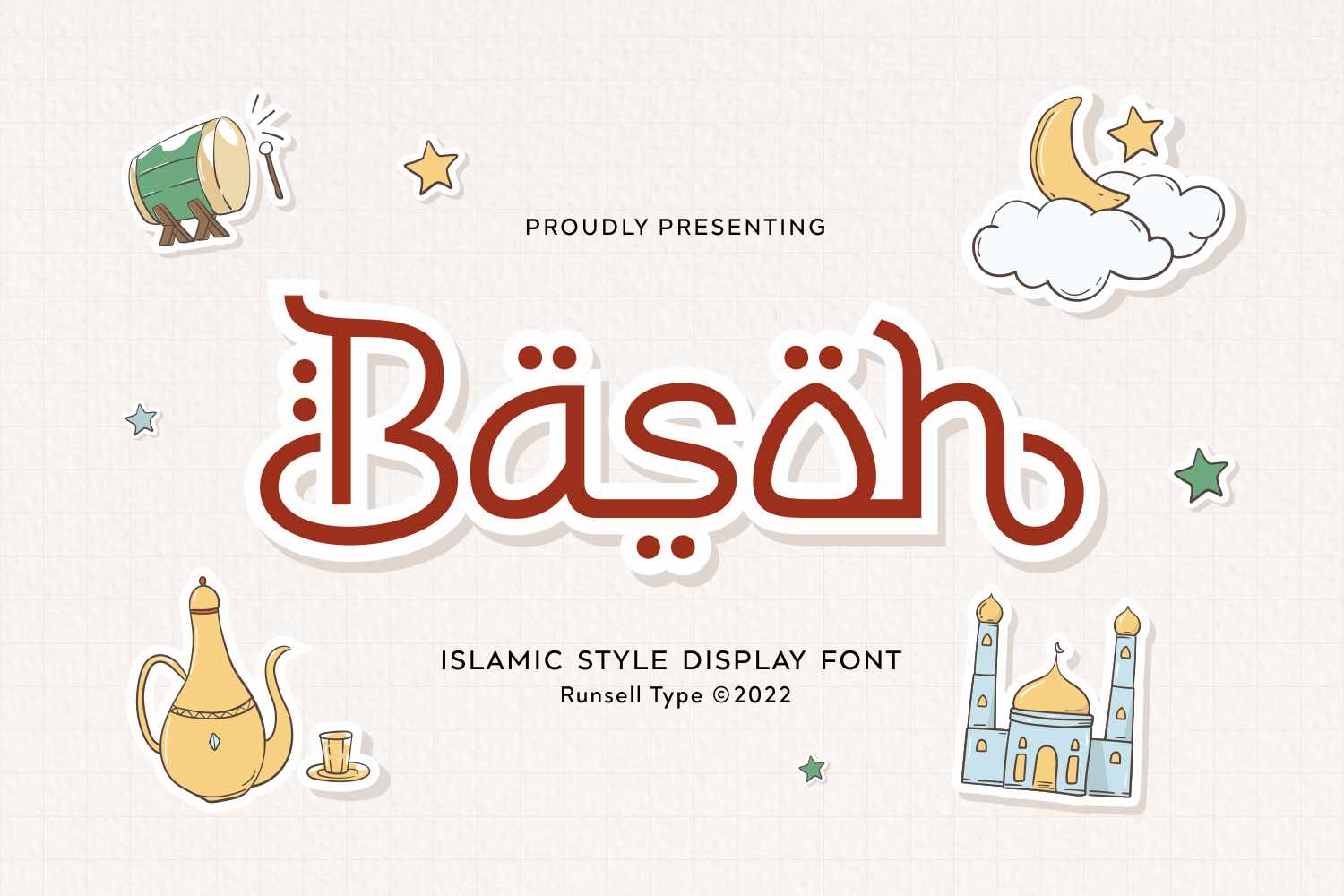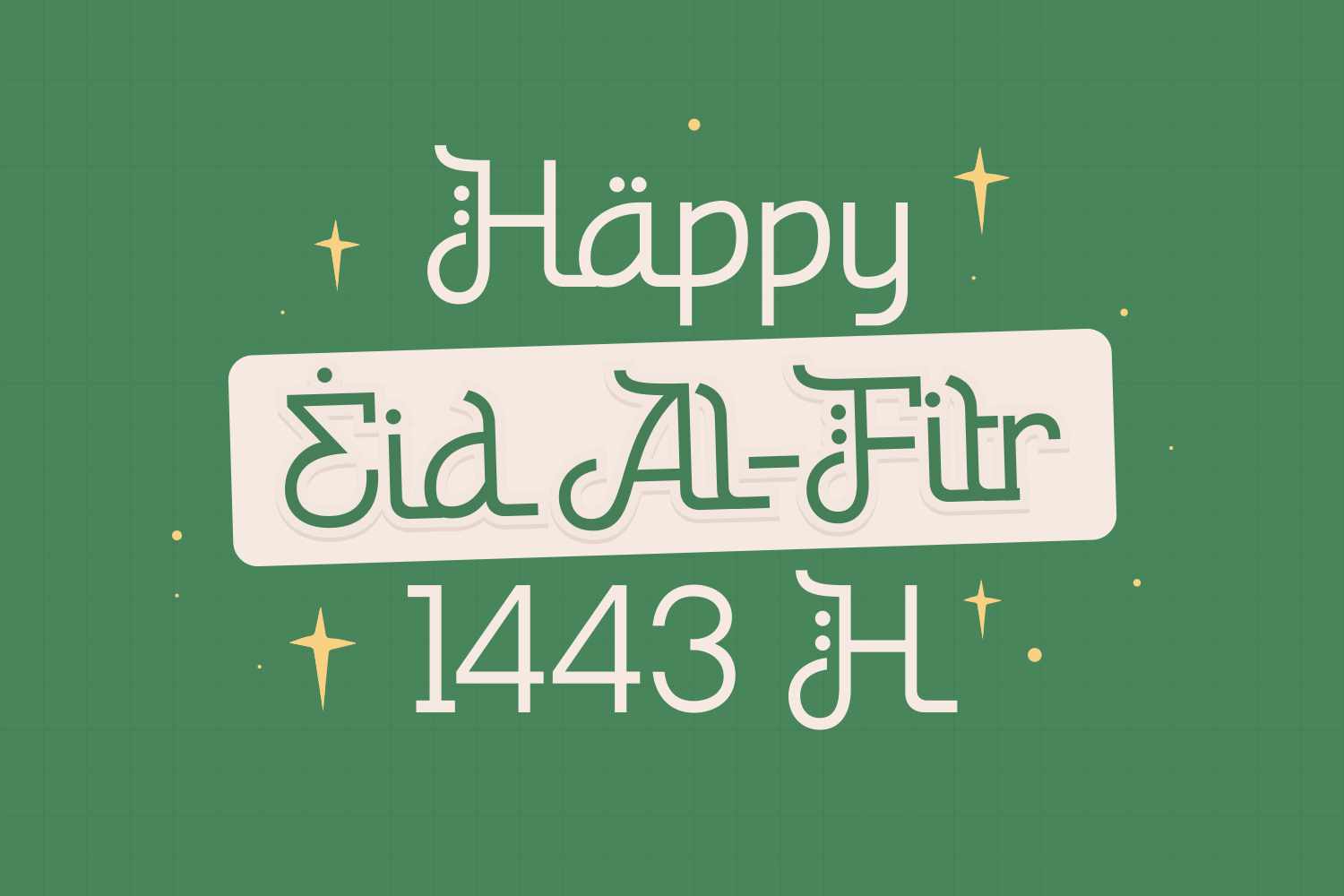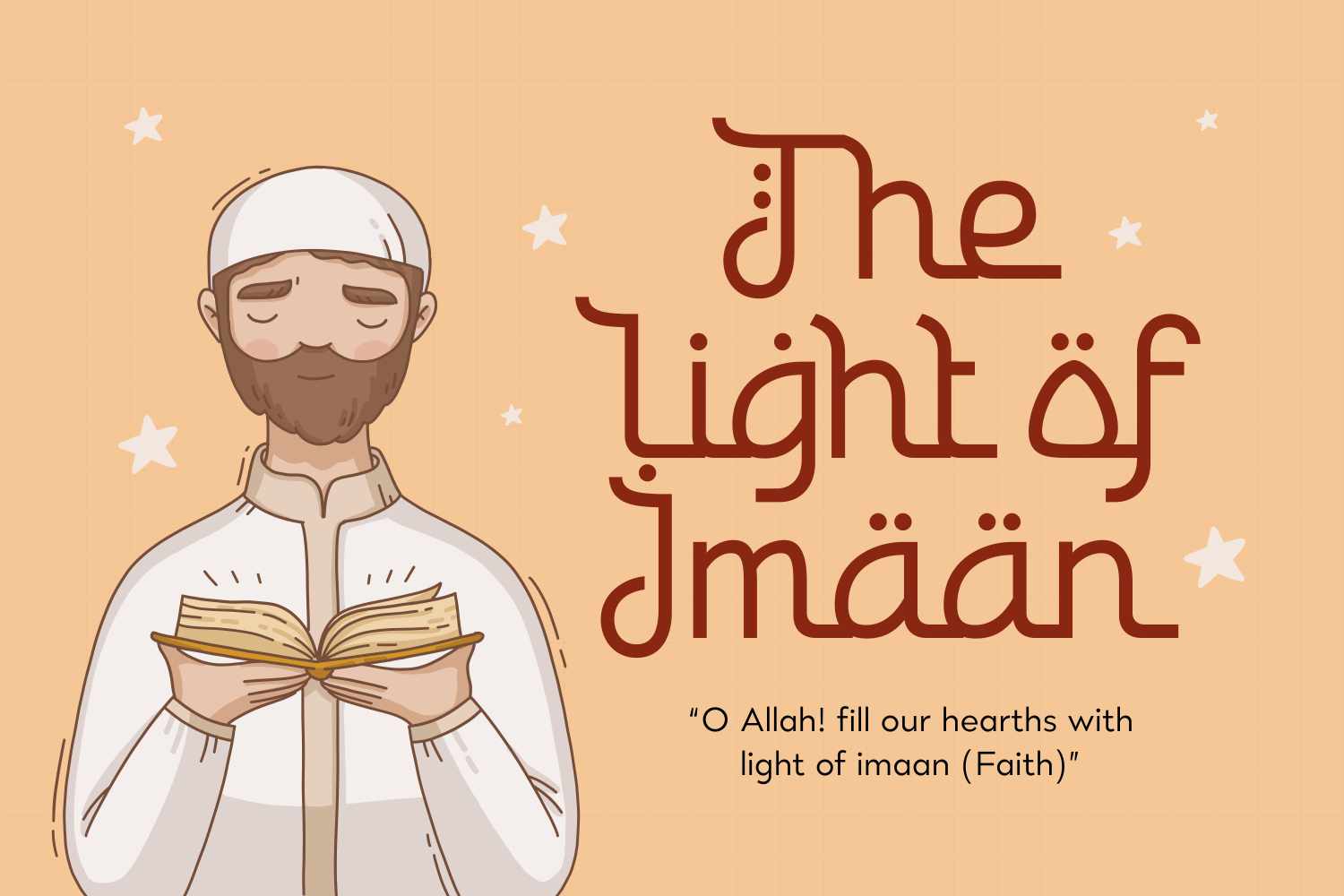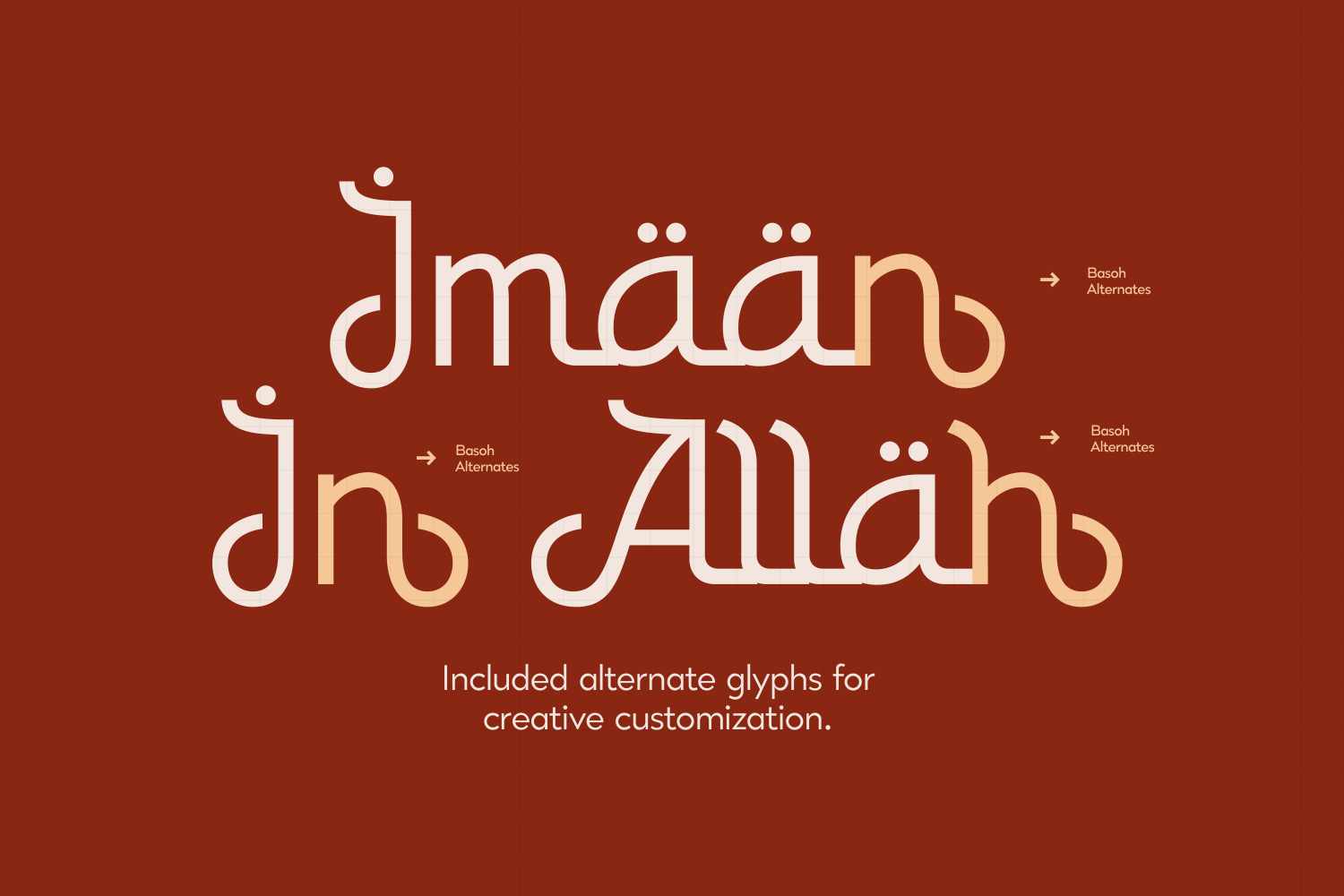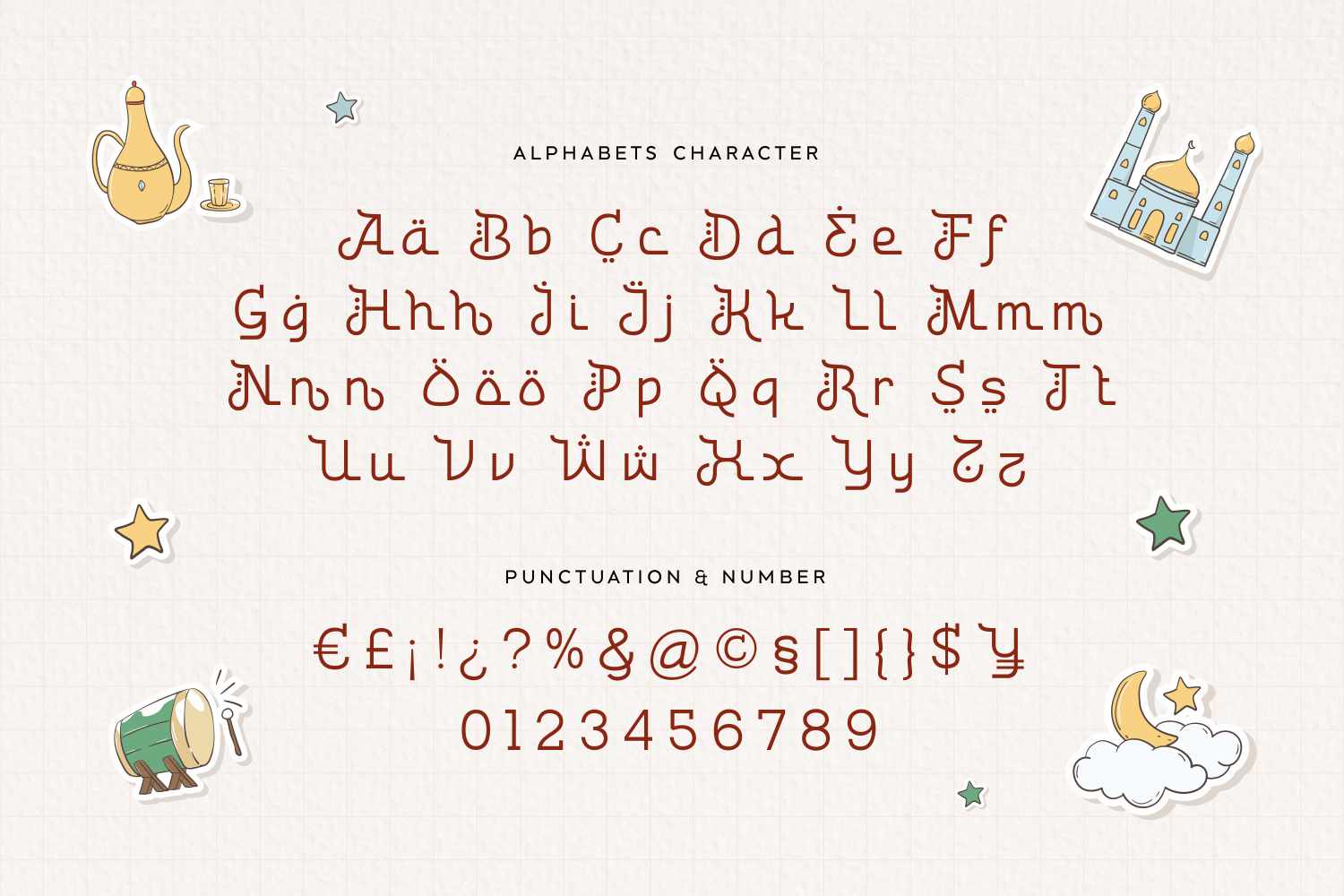
Basoh is a cheerful Islamic-style display font that blends traditional cultural elements with a soft, rounded modern look. Its distinctively playful letterforms are embellished with dots and curls, reminiscent of Arabic calligraphy, making it ideal for children’s books, Islamic learning materials, Ramadan campaigns, and Eid greeting cards. The font’s whimsical tone is elevated by its unique alternates and ligatures, which allow for creative flexibility and culturally expressive design.
This font not only brings a sense of warmth and friendliness but also celebrates the spirit of the Islamic festive atmosphere with cartoonish charm. Basoh includes multilingual support, complete uppercase and lowercase alphabets, numbers, punctuation, and decorative alternates. Its versatility suits digital illustrations, educational graphics, food packaging, and apparel that calls for an Islamic yet approachable aesthetic.
Basoh